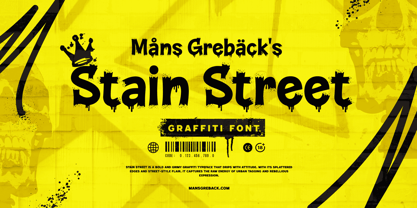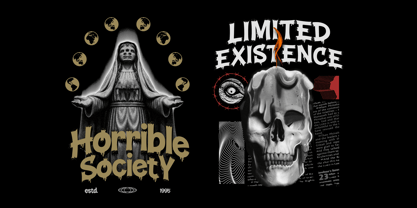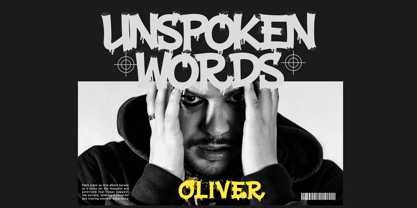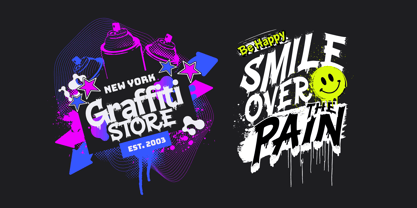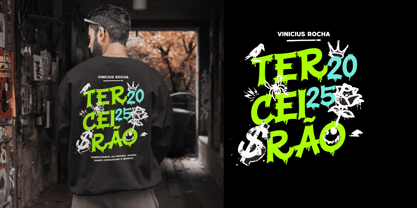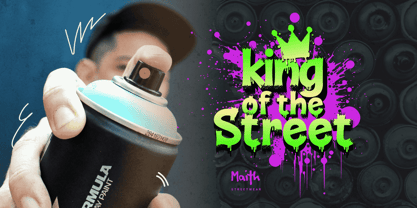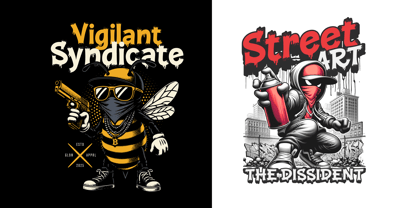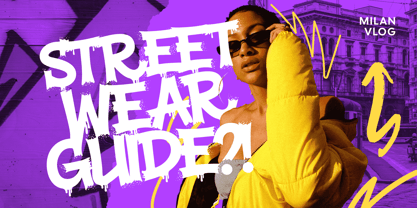
Stain Street
by Mans Greback
The Stain Street Font Family was designed by Måns Grebäck and published by Mans Greback. Stain Street contains 1 styles.
Stain Street is a bold and grimy graffiti typeface that drips with attitude. With its splattered edges and street-style flair, it captures the raw energy of urban tagging and rebellious expression. The heavy letterforms feel hand-drawn and urgent, as if freshly sprayed on a concrete wall. This font brings a sense of movement and decay, like wet paint streaking downward. It’s loud and unruly, yet carefully constructed—perfect for capturing a vibe of controlled chaos. Whether marking a back alley, concert poster, or horror scene, Stain Street leaves its unmistakable trace. The font is built with advanced functionality and guaranteed top-notch quality, containing stylistic and contextual alternates, ligatures and more automatic and manual features; all to give you full control and customizability. It has extensive lingual support, covering all Latin-based languages, from North Europa to South Africa, from America to South-East Asia. It contains all characters and symbols you'll ever need, including all punctuation and numbers. Designed and produced by Mans Greback, a type designer known for pushing expressive extremes while ensuring professional precision.
About Mans Greback
Måns Grebäck is a type designer and font creator specializing in script typography, but with a portfolio containing a vast selection of styles. Typefaces from Måns Grebäck are used as company and product logotypes, as well as headlines and in advertisement by a wide range of industries world-wide. Founded by Måns Grebäck in 2010, Mans Greback AB originally went under the name of Mawns Fonts and later Aring Typeface AB. While the foundry has its seat Örebro, Sweden, Måns also lives in Portugal. The Premium Foundry page can be viewed Here.